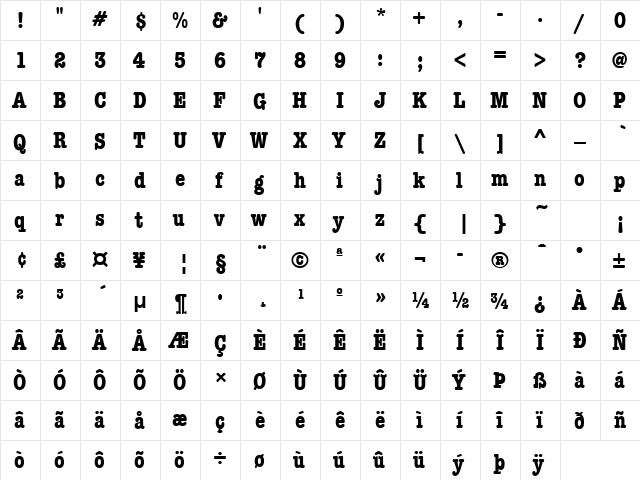
TypewriterCond Bold Font Preview
TypewriterCond Bold
TypewriterCond Bold Font Details
Design Context for TypewriterCond Typeface
TypewriterCond brings the precise, column-aligned rhythm of monospaced typography to designs that value technical clarity and systematic order. Its bold stroke weight gives it real presence on the page.
Well-suited to data-driven dashboards, coding tutorials, and any design that wants to reference the world of programming.
Pro Tip: Use TypewriterCond with slightly increased line-height for extended reading — fixed-width spacing can feel dense in longer passages without extra breathing room.